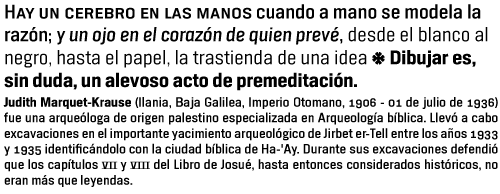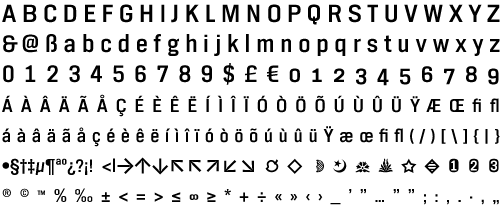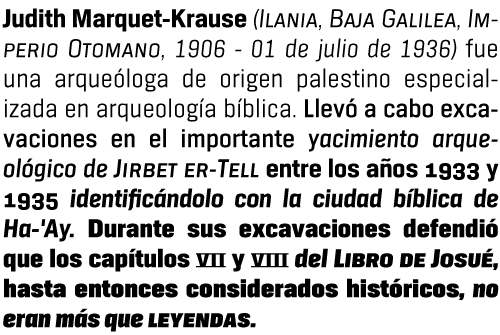
alestina is a sans serif font designed for reading texts and inspired in the condensed Trade Gothic font, which features a strong influence from the time of metal foundry -based typography.
The characteristic of its design allows to offer easily recognizable and very stable words and it has been conceived to be used in titles and newspaper and magazine headlines.